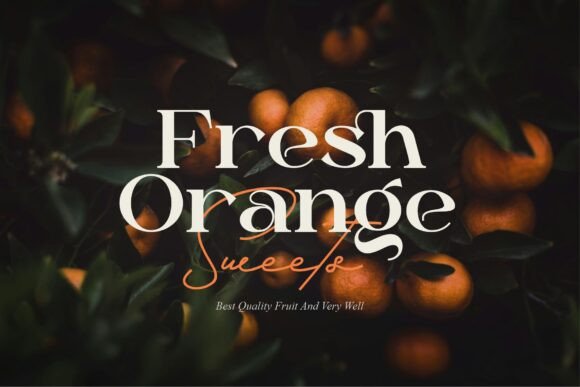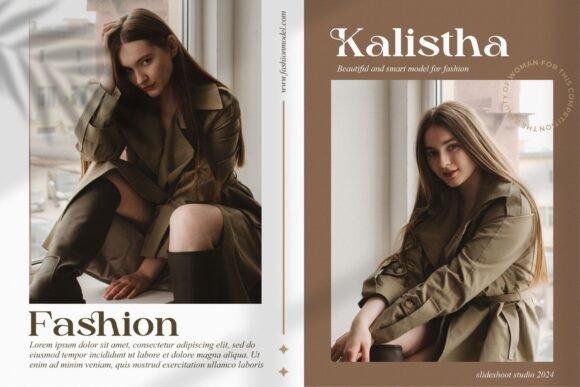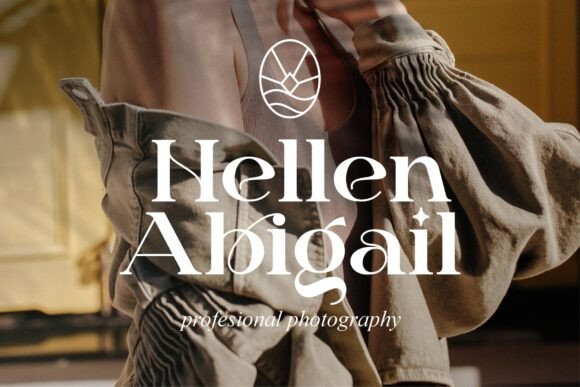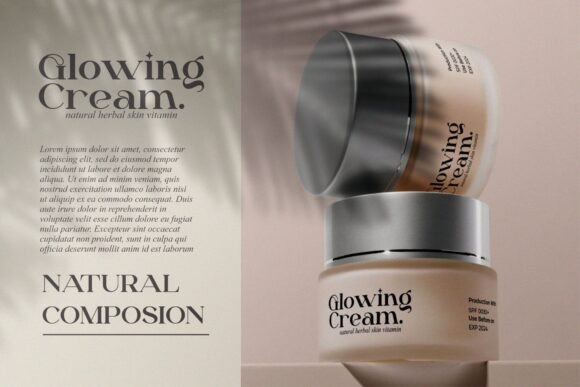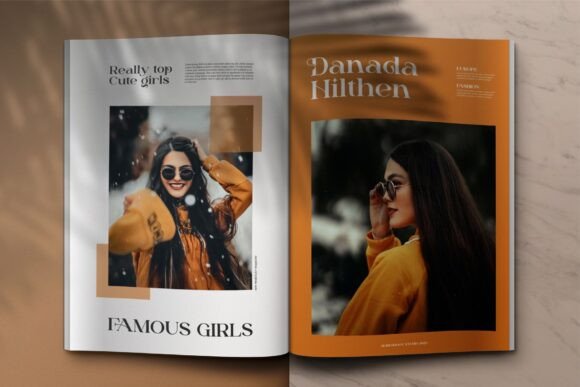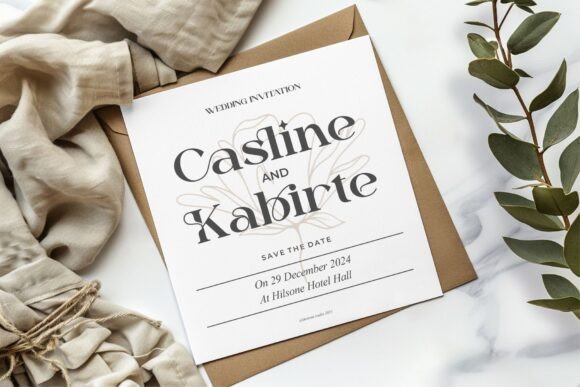
Dailen Style Font: Elevate Your Designs with Elegance and Sophistication
In the world of typography, fonts play a crucial role in conveying the tone and personality of a brand or design. For designers and crafters seeking to add a touch of elegance and class to their work, the Dailen Style Font is an excellent choice. This modern and classy Serif font is designed to make a statement, making it perfect for a wide range of applications, from branding and logo designs to invitation cards, movie titles, and more.
The Characteristics of Dailen Style Font
Dailen Style Serif is a smooth serif font that exudes sophistication and refinement. Its beautiful character is crafted to make your designs stand out, whether you’re working on a logo, business card, or book title. The font’s stylish alternations and ligatures add a touch of uniqueness, making it a perfect partner for any project. With Dailen Style, you can elevate your designs and create a lasting impression on your audience.
One of the key benefits of the Dailen Style Font is its versatility. This elegant font is suitable for a wide range of design applications, including:
- Branding and Logo Designs: Create a lasting impression with a custom logo that reflects your brand’s personality.
- Invitation Card Designs: Make your invitations stand out with a beautiful and elegant font.
- Movie Titles and Names: Add a touch of sophistication to your movie titles and names.
- Business Cards: Create a professional and elegant business card that reflects your brand’s image.
- Book Titles: Make your book titles stand out with a beautiful and classy font.
- Brand Names: Create a strong brand identity with a custom font that reflects your brand’s personality.
Why Choose Dailen Style Font?
With so many fonts available, why choose Dailen Style Font? Here are just a few reasons:
- Elegance and Sophistication: Dailen Style Font exudes elegance and sophistication, making it perfect for high-end designs.
- Modern and Classy: This font is designed to make a statement, making it perfect for modern and classy designs.
- Stylish Alternations and Ligatures: The font’s stylish alternations and ligatures add a touch of uniqueness to your designs.
- Versatility: Dailen Style Font is suitable for a wide range of design applications.
Tips for Using Dailen Style Font
To get the most out of Dailen Style Font, here are a few tips:
- Pair it with Other Fonts: Experiment with pairing Dailen Style Font with other fonts to create a unique and interesting design.
- Use it for Headings: Dailen Style Font is perfect for headings and titles, making it a great choice for designs that require a bold statement.
- Experiment with Colors: Try experimenting with different colors to find the perfect combination that complements your design.
In conclusion, Dailen Style Font is an elegant and classy font type that is perfect for designers and crafters seeking to add a touch of sophistication to their work. With its beautiful character, stylish alternations, and ligatures, this font is suitable for a wide range of design applications. Whether you’re working on a branding project, logo design, or invitation card, Dailen Style Font is an excellent choice. So why wait? Download Dailen Style Font today and elevate your designs to the next level!